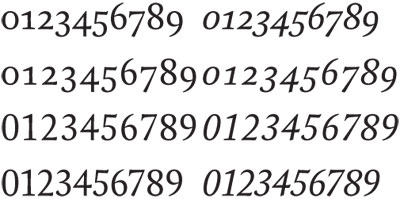
dot-font: Numbers Don’t Lie
The way we write numbers depends on who we are and where we learned to write. Anyone who has traveled knows this; the hand-scrawled prices on a vegetable stand in Paris, for instance, look very different from prices on an equivalent stand in New York. But we don’t stop and think about how different the numbers are in the different fonts we use. In fact, there are a lot of ways to treat numerals, and most are in one font or another— sometimes all in the same font.
The numbers we’re used to reading in print—each one the same width, and all of them the same height (usually the height of capital letters)—are a relatively recent development. Typographers call them “modern” figures because they were the hottest thing in type at the end of the 18th century, when revolution was in the air, in printing as in everything else. Before then, numbers (when they weren’t spelled out, or occasionally in roman numerals) were more like lowercase letters: different widths for different numerals, most of them the same height as lowercase letters, though some had ascenders or descenders that rose above the x-height or fell below the baseline. Those are known to typographers as “old-style” figures.
Old-style figures in an old-style text typeface (MVB Verdigris, top) and modern (lining) figures in a heavy sans serif display typeface (Champion, bottom).
Numbers in Text
Old-style figures are most appropriate in running text, where they blend in with the letters. Most typefaces up to the 19th century were text faces; even the largest sizes were often clearly related to text faces in form and style. The Industrial Revolution, and the commercial society it engendered, brought an explosion of display type, used in advertising and publicity of all kinds. These big, bold typefaces, often used in all-caps setting, needed big, bold numerals to go with them. Even the text types in the 19th century had modern figures, which stood out prominently from the surrounding text. It was a statement.
But today, when so much of our text is full of numbers, those cap-high modern figures are distracting. We may be used to seeing every date set in Times Roman with its lining figures sticking up to cap height, but it looks a little like every number is being shouted. That’s why the revival of old-style figures has swept in, and why so many new text faces have old-style figures as an alternate form or as the default form for numbers. (They generally include modern figures, too, since you do need them when you’re setting a line all in caps.)
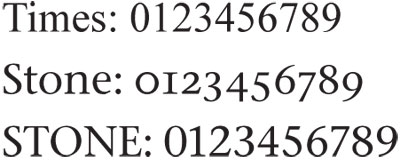
The lining figures in Times New Roman (top), and both old-style and lining figures in ITC Stone Serif (middle, bottom).
Stepping Outside the Bounds
Some of today’s type designers have gone a step farther and are experimenting with other ways of treating those familiar ten figures. One of those ways is to create “semi-lining” figures, which almost line up but don’t quite. (Modern figures are also called “lining” figures, because they all line up, top and bottom, just like capital letters.) Matthew Carter has played with semi-lining figures in several of his typefaces, especially text faces intended for use in such high-traffic formats as newspapers and magazines. Carter’s popular typeface Miller has figures like this; they are very slightly shorter than the caps (though not enough so they look odd in combination with caps), and some of the numerals extend slightly above or below that height. The top of the 6 loops up above the other letters—but only slightly!—while the 7 and 9 extend just a tad below the baseline.
Special newspaper versions of Matthew Carter’s Miller type family, with lining numerals that go just slightly out of bounds.
This restrained exuberance serves a functional purpose: it differentiates the numerals from each other, making them easier to distinguish and harder to misread. This is essential. Numbers are specific and precise; they have to be clearly readable. Numerals that look alike aren’t functional; that’s what makes Helvetica such a terrible choice for typesetting a business card or a list of phone numbers. The opposite of Helvetica might be a typeface like Michael Gills’s Elysium, where the old-style figures express exuberance with almost no restraint. They’re legible, and beautiful, but no one would ever call them quiet.
The unrestrained old-style figures in the typeface Elysium, by Michael Gills.
Numerals For Every Purpose
Old-style figures generally work very well with small caps—true small caps, not just full-size capital letters that have been shrunk to a fraction of their original size. In postal codes, for instance, small caps and old-style figures mix well. But some type designers prefer to create special small-cap figures: lining figures that align with the tops and bottoms of the small caps, not the full caps. (This may be particularly useful if the small caps are noticeably taller than the lowercase x-height.) Three of the new text typefaces that Microsoft will release as part of Longhorn, the next version of the Windows operating system, include small-cap figures: Constantia (John Hudson), Corbel (Jeremy Tankard), and Calibri (Lucas de Groot).
Lining figures designed to match the height of the small caps in the typeface Constantia, by John Hudson: small-cap figures (left) and old-style figures (right) shown with small caps.
Variations like this can be built into OpenType fonts. The advantage to building variations such as small caps into the font are that any program that can access OpenType’s typographic features can use them. For example, if you work in InDesign and you use an OpenType Pro font such as Adobe Jenson Pro, you simply select some text and apply a numeral style like “tabular old-style figures.” (Not all Pro fonts have every kind of numeral; it’s up to the type designer. But the possibility is there.) In a font like Constantia, the small-cap numerals are accessed by applying the “OpenType All Small Caps” command.